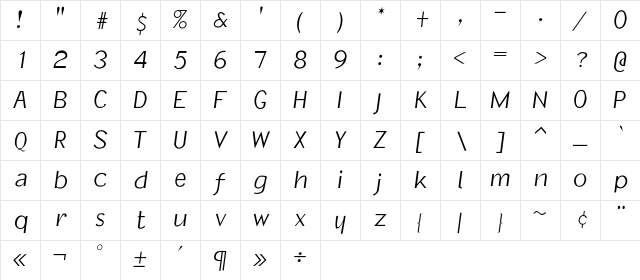
IvanholeOblique Regular
Design Context for IvanholeOblique
IvanholeOblique is a composed and adaptable typeface that performs quietly and consistently across a wide range of design contexts. The slanted form adds forward momentum and visual energy.
Pro Tip: Use IvanholeOblique for emphasis, pull quotes, and subheadings where its slanted energy can add rhythm to the layout.